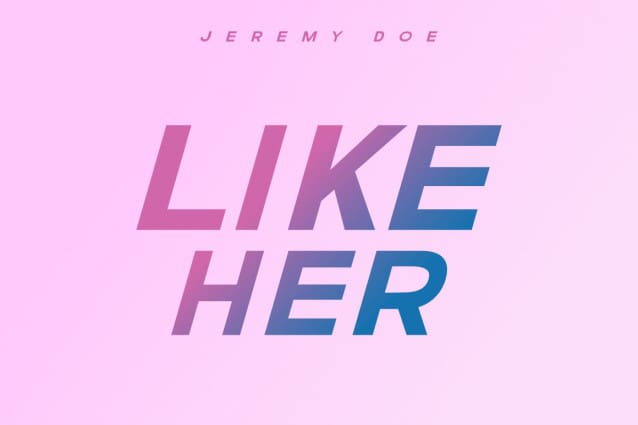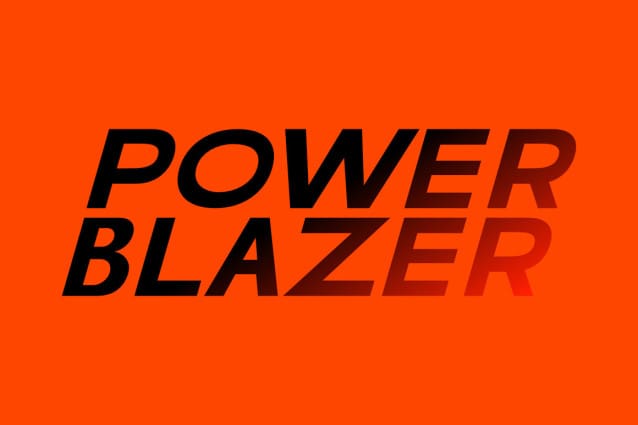
FFPQR Italic Font
FFPQR Italic Font, Perfectly fit for branding, logo, wedding things, greeting cards, fashion, lookbook, marketing promotion, anytime you want to look fancy elegant but still casual.